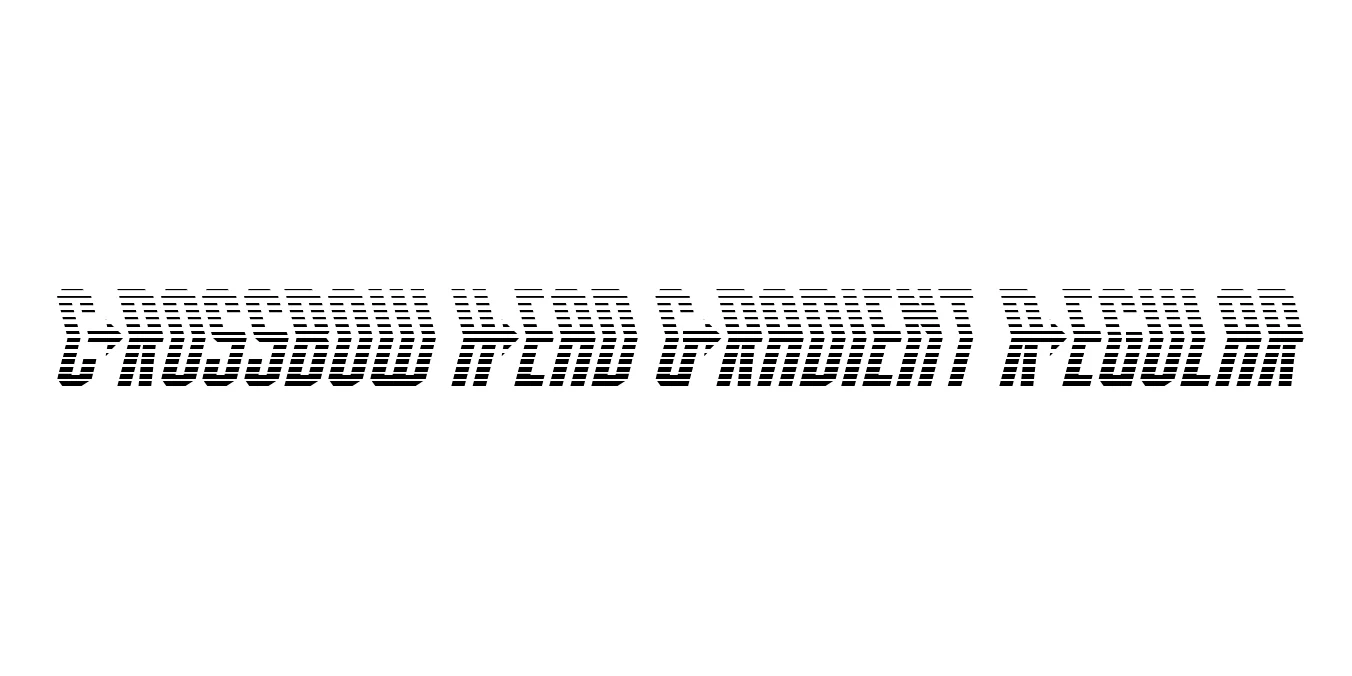
Crossbow Head Gradient Regular
Designed by Chequered Ink
Crossbow Head Gradient Regular is a striking display typeface designed to command attention. It features a bold, industrial aesthetic with integrated gradient effects that suggest movement and depth. Developed by the creative team at Chequered Ink, this font is part of a larger family designed for high-impact visual communication, particularly in the realms of digital gaming, e-sports branding, and modern technology sectors.
The design is characterized by its sharp, aggressive angles and robust letterforms, reminiscent of modern aerospace or automotive typography. While the "Gradient" variant adds a unique layer of complexity and texture, the underlying structure remains highly legible and powerful. It is frequently chosen by designers for titling, logotypes, and promotional posters where a futuristic, high-energy, or mechanical vibe is required to stand out.
Crossbow Head Gradient Regular Best Uses
Perfect for e-sports logos and streaming overlays.
Ideal for bold, attention-grabbing titles in magazines.
Works well for high-impact promotional materials.
Suitable for streetwear and jersey typography.